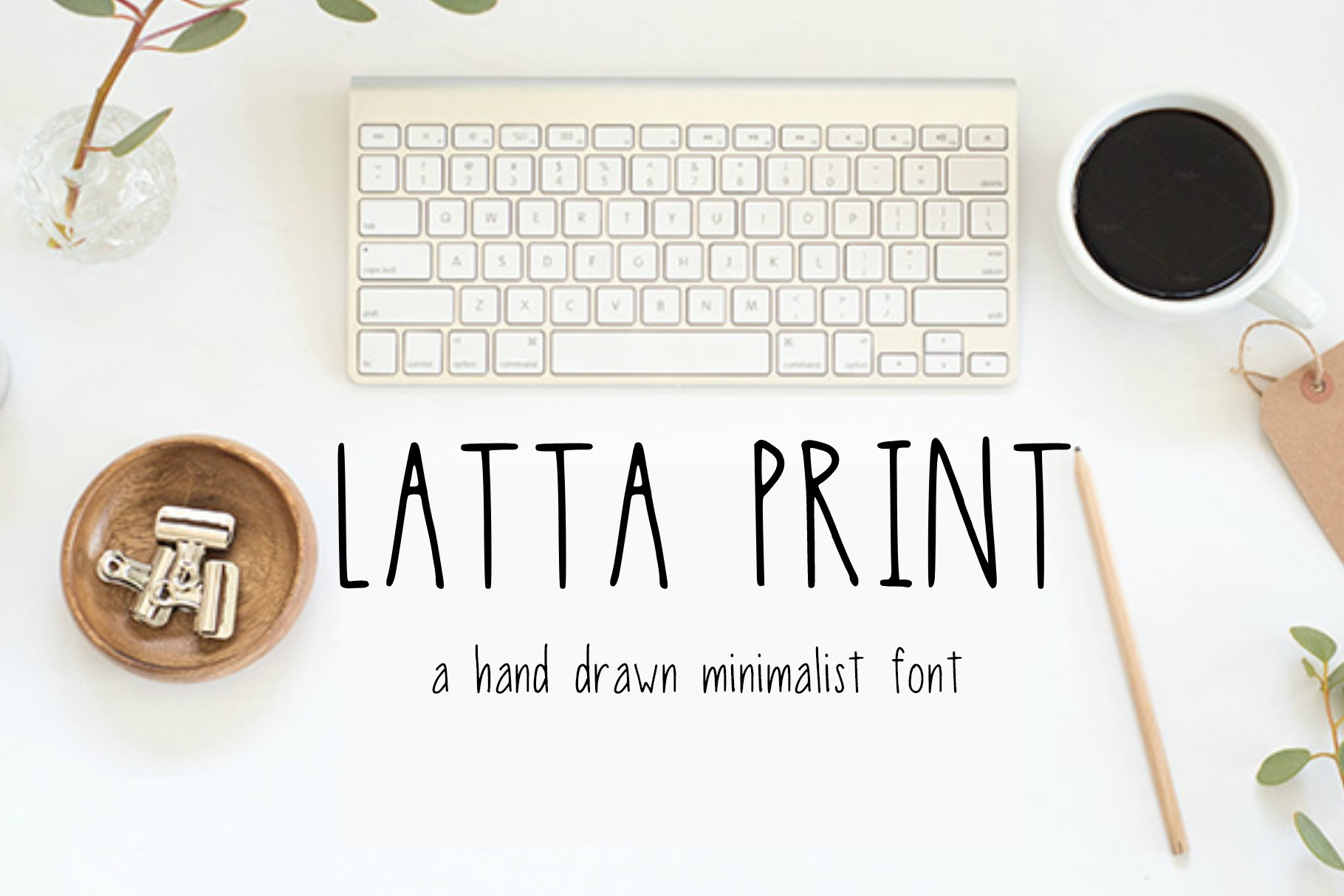
Latta Print: A Minimalist Print Font
Looking to add a minimalist hand lettered look to your projects? Latta Print is simple and clean but with a distinctly hand-drawn touch. It's perfect for all types of media and contains both uppercase and lowercase alphabets, along with numbers and basic symbols.
Created by Amy Latta, author of Hand Lettering for Relaxation and Express Yourself: A Hand Lettering Workbook for Kids.